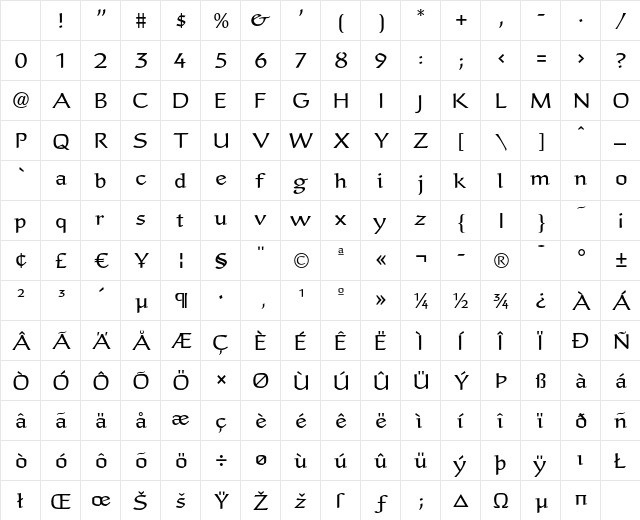
Anasdair LT Std Regular Regular
Designer: Richard Yeend
Design Context for Anasdair LT Std Regular
Anasdair LT Std Regular is a composed and adaptable typeface that performs quietly and consistently across a wide range of design contexts. Its slender proportions lend an understated elegance to any composition.